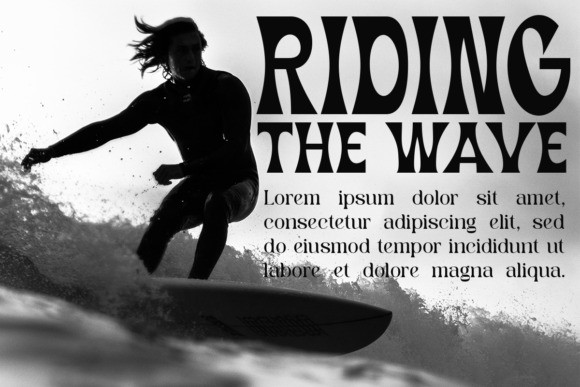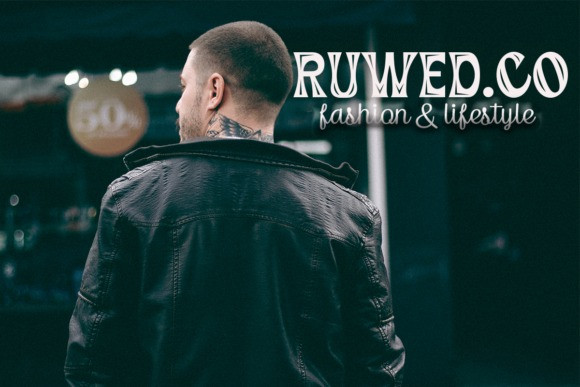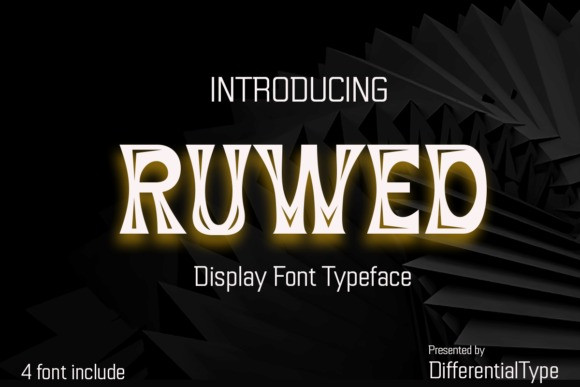
Ruwed Font
Ruwed Font is a unique and bold looking display font. it is suitable for various design needs that will add a strong and assertive impression. Thank you so much for checking out this font! Leave a comment if you like it.